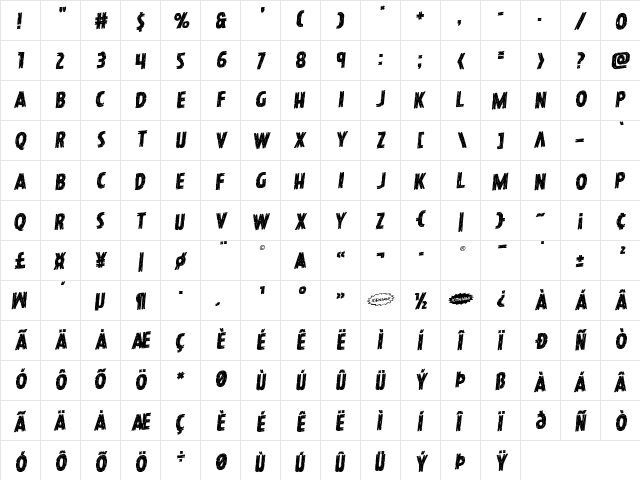
Hanging Tree Staggered Rotalic Italic
Design Context for Hanging Tree Staggered Rotalic Typeface
Hanging Tree Staggered Rotalic is a composed and adaptable typeface that performs quietly and consistently across a wide range of design contexts. The dynamic lean of this cut emphasises speed and emphasis in any layout.
Pro Tip: Use Hanging Tree Staggered Rotalic for emphasis, pull quotes, and subheadings where its slanted energy can add rhythm to the layout.